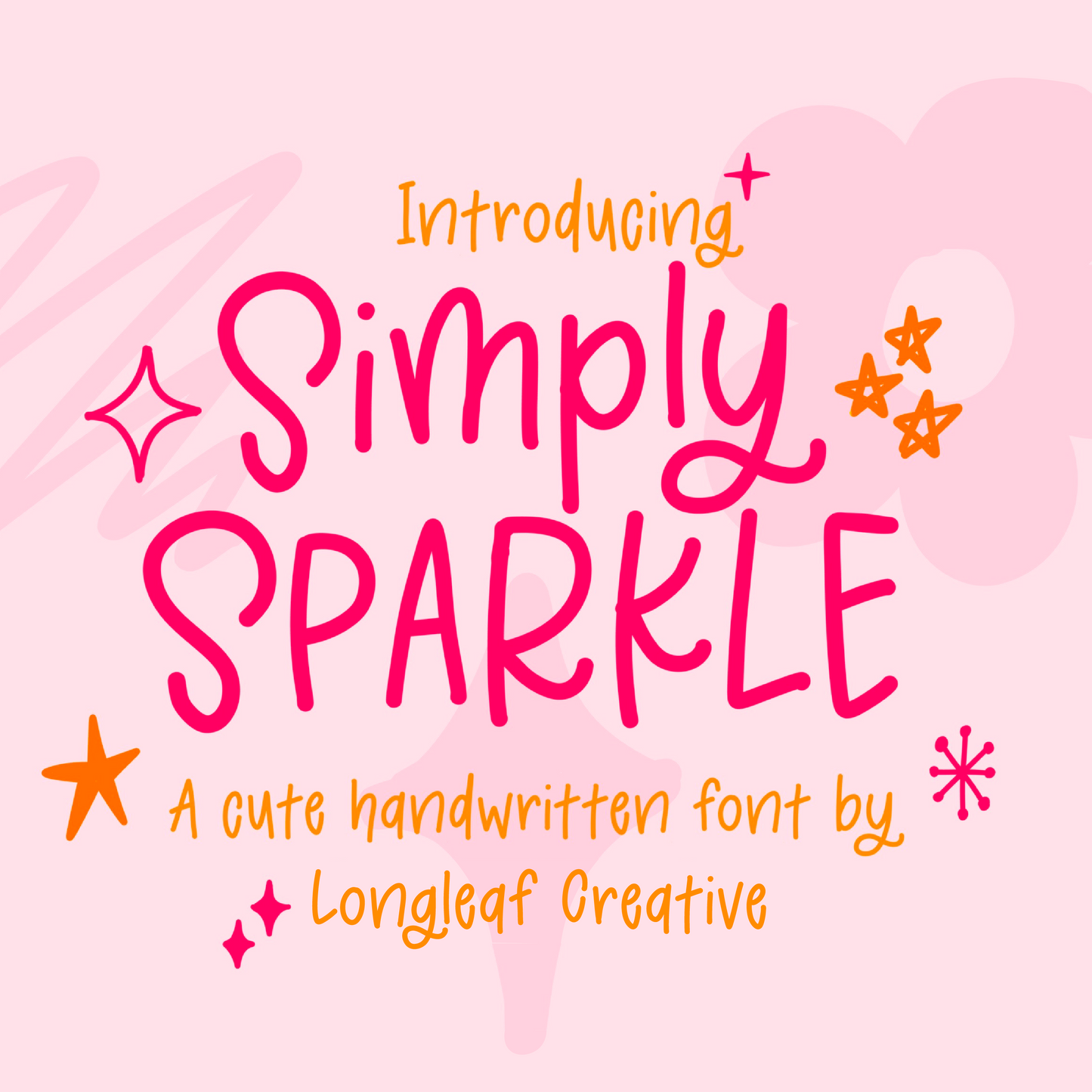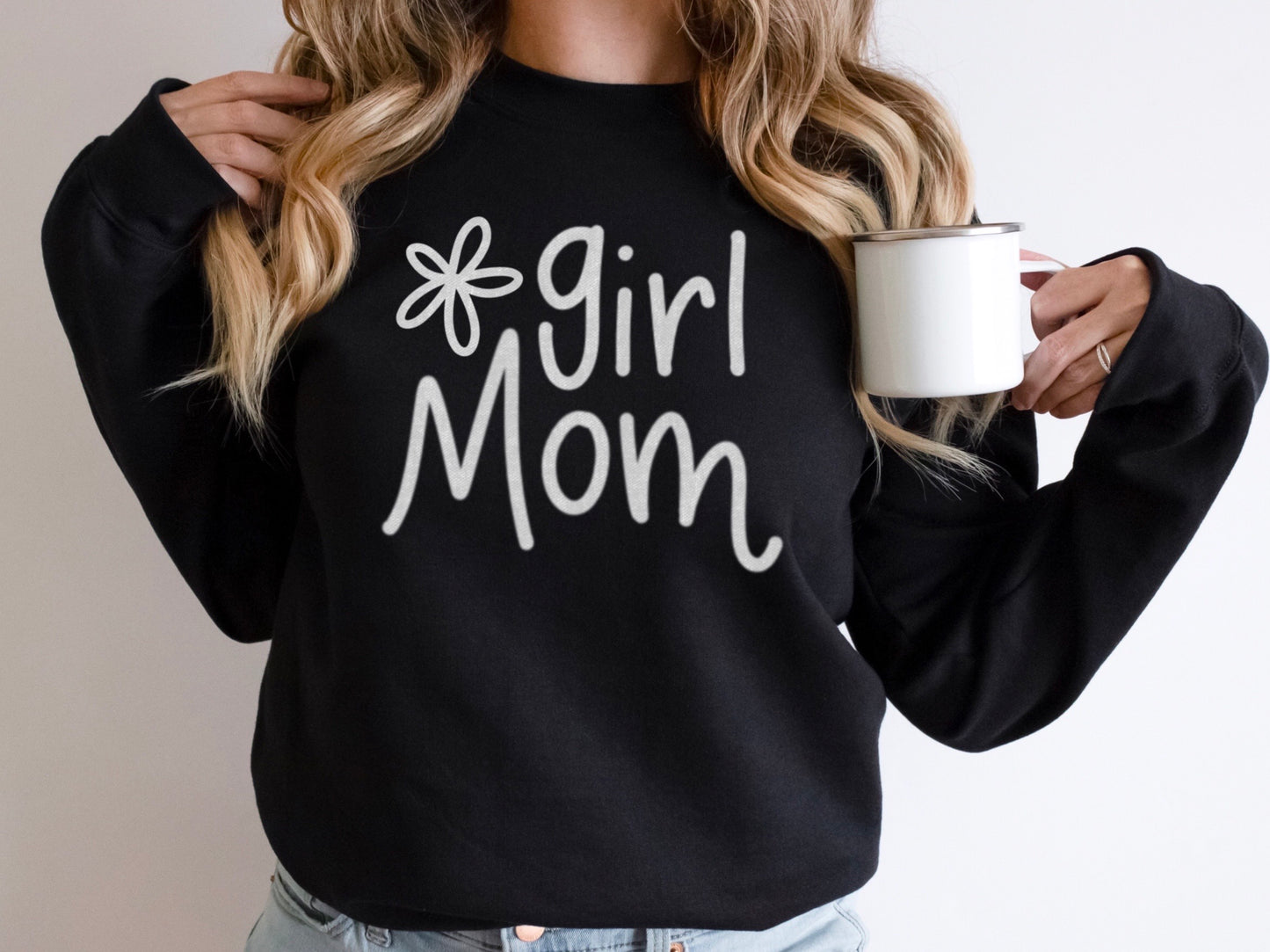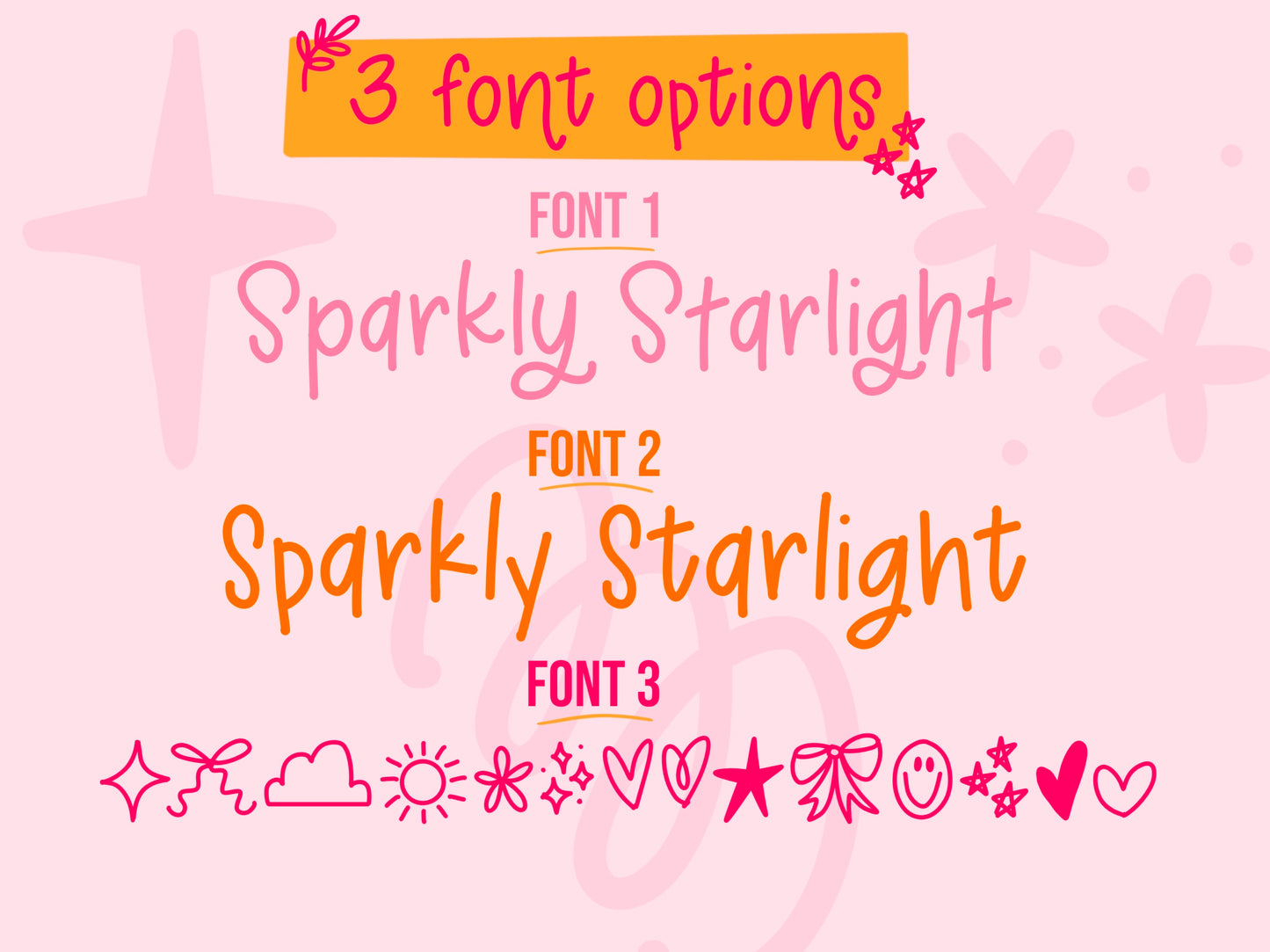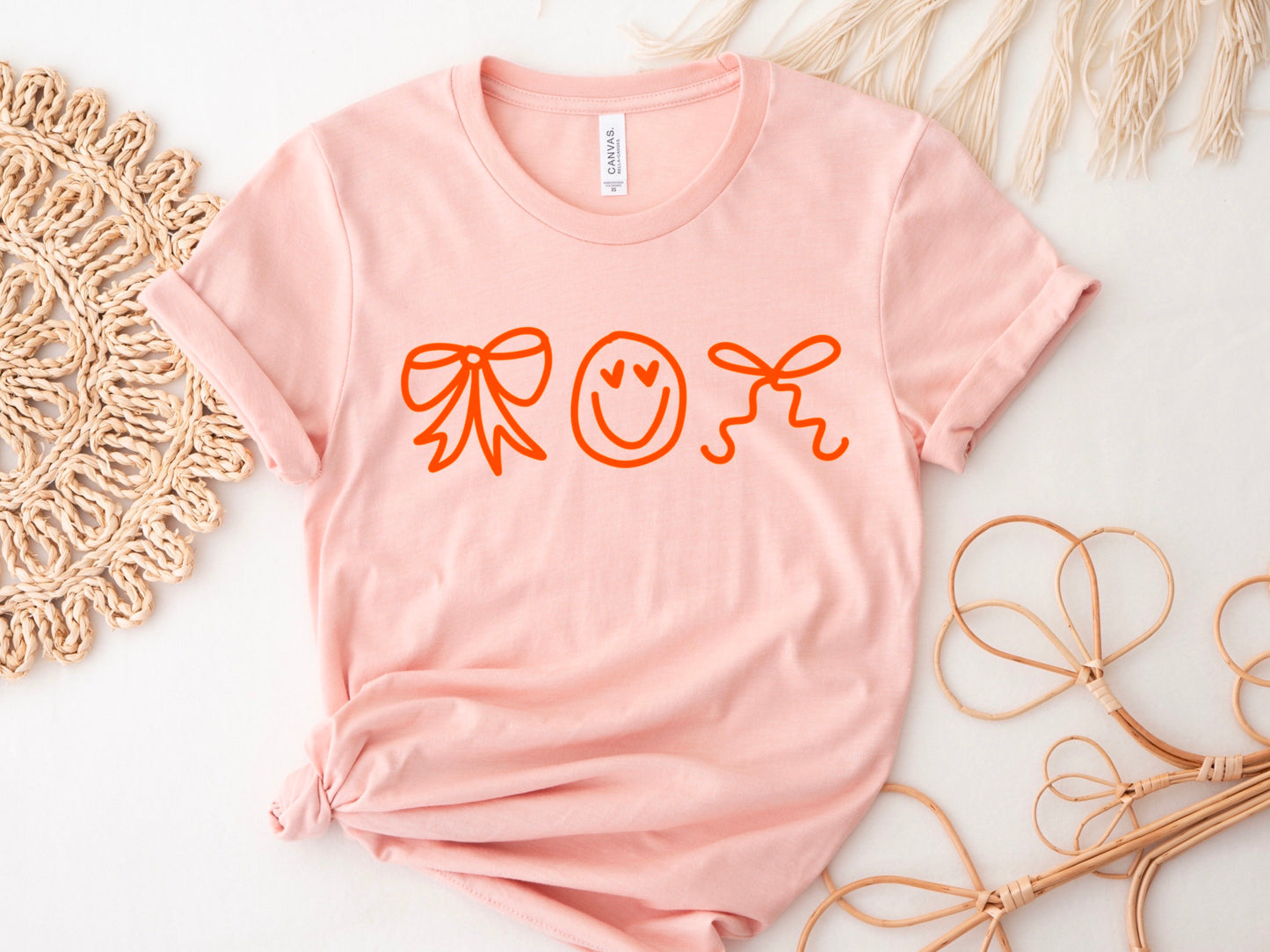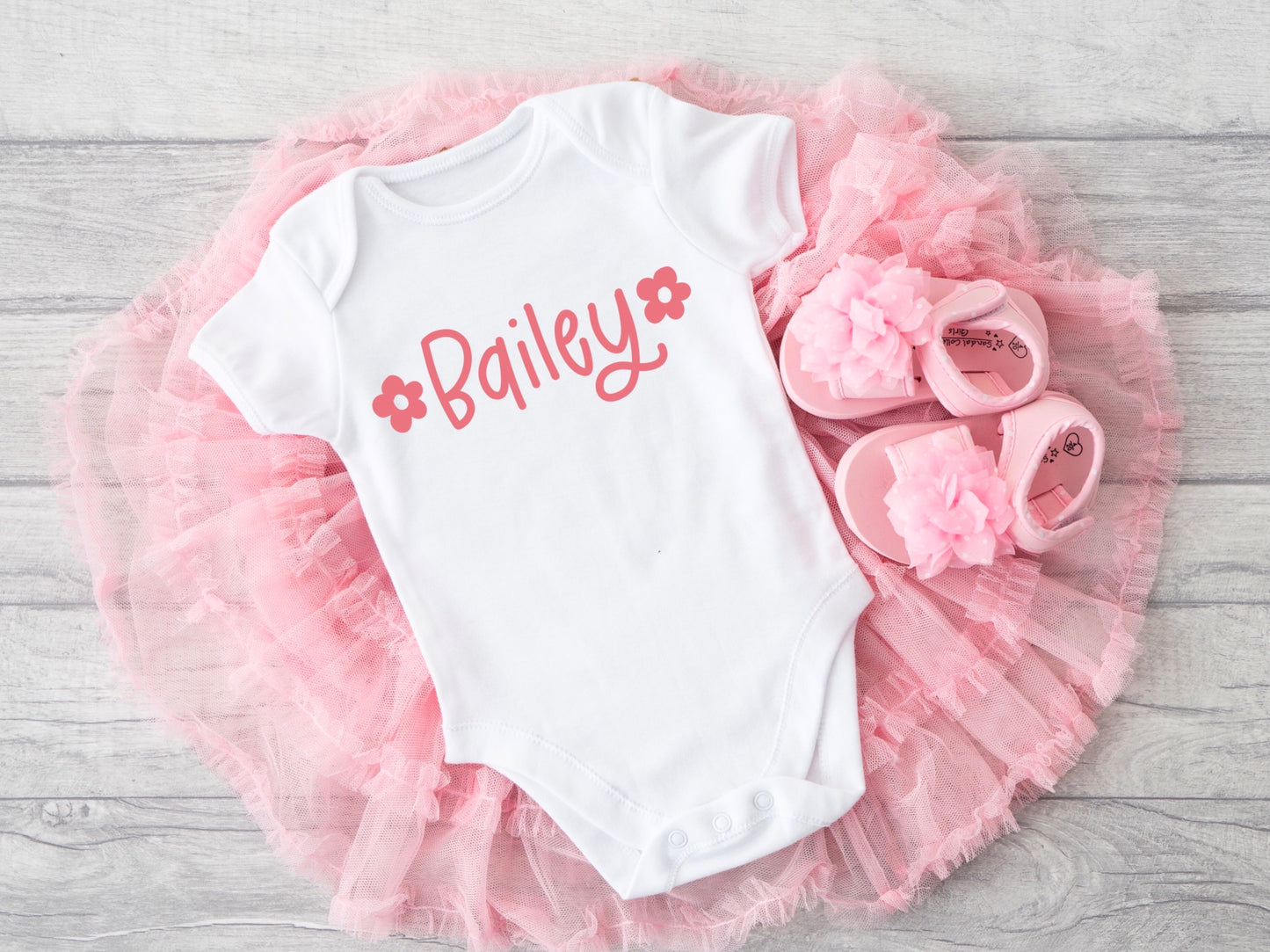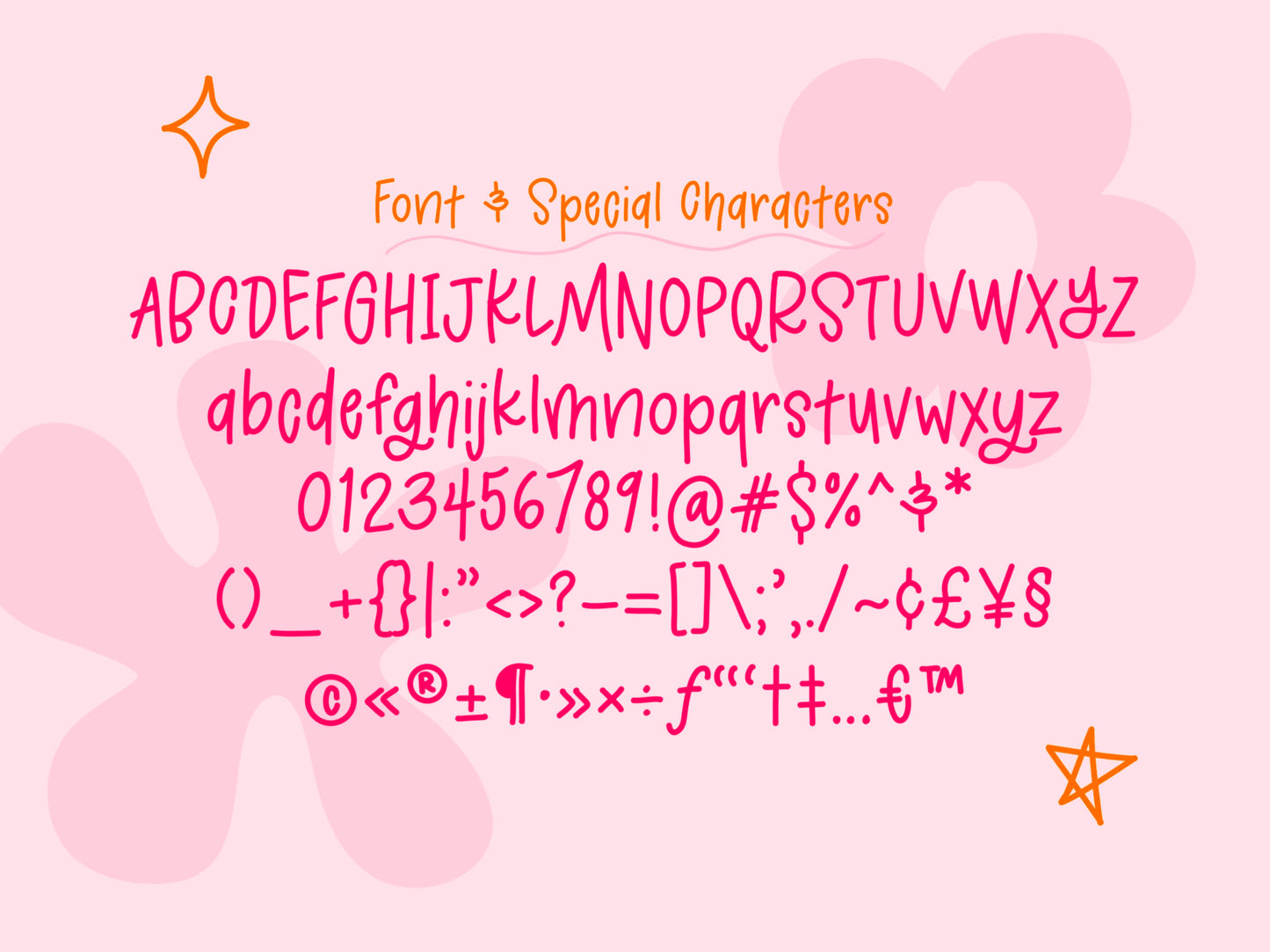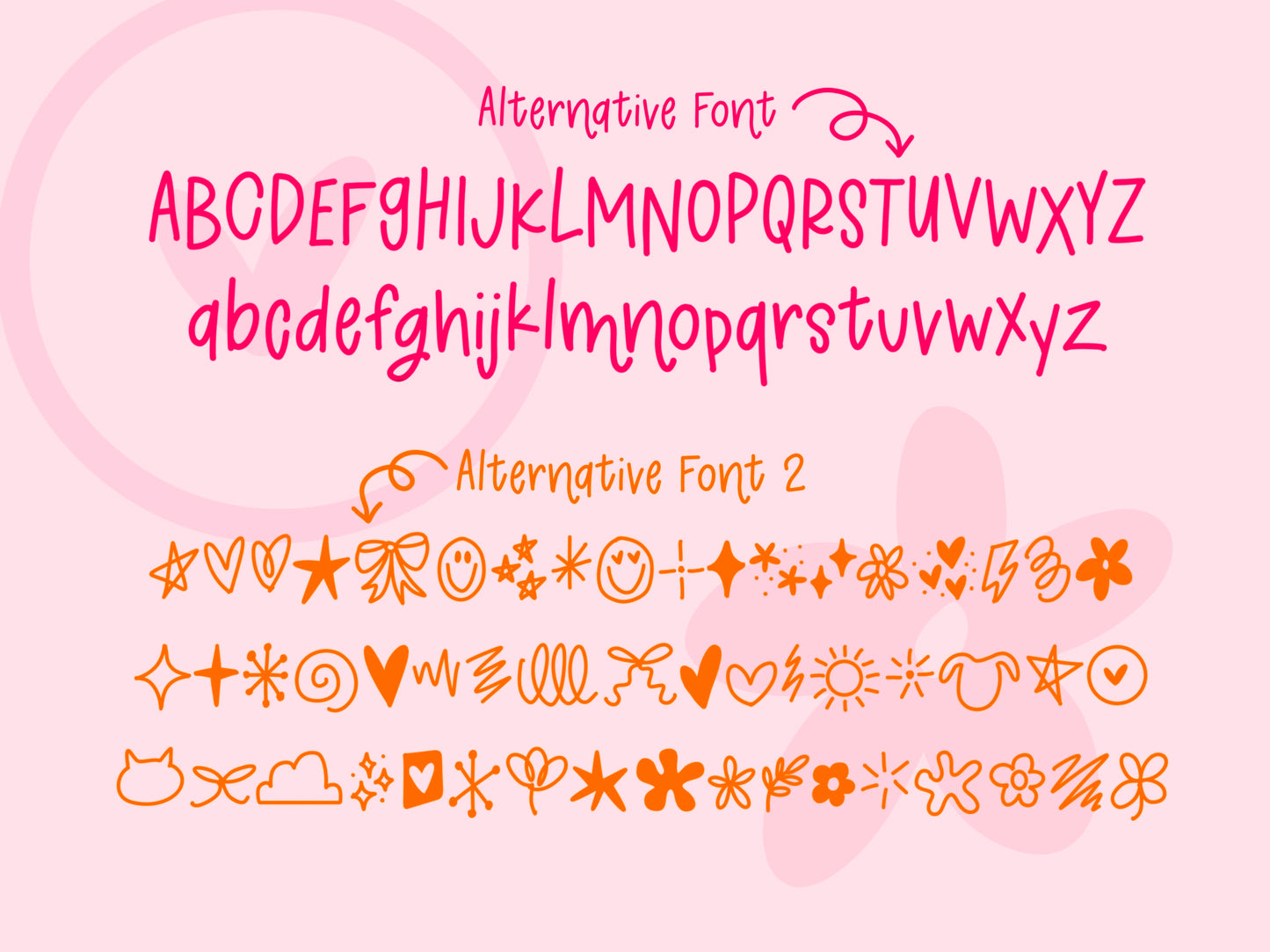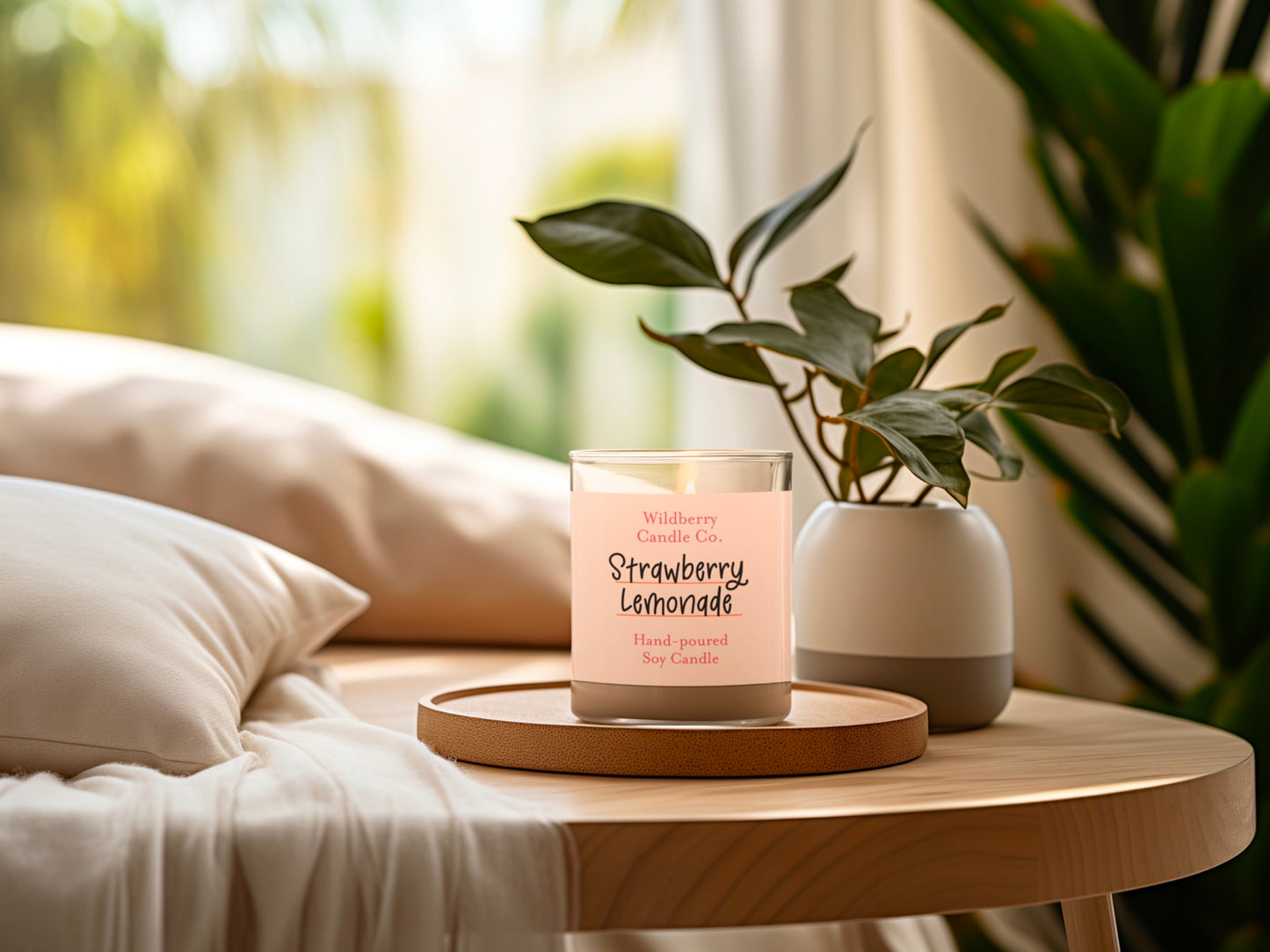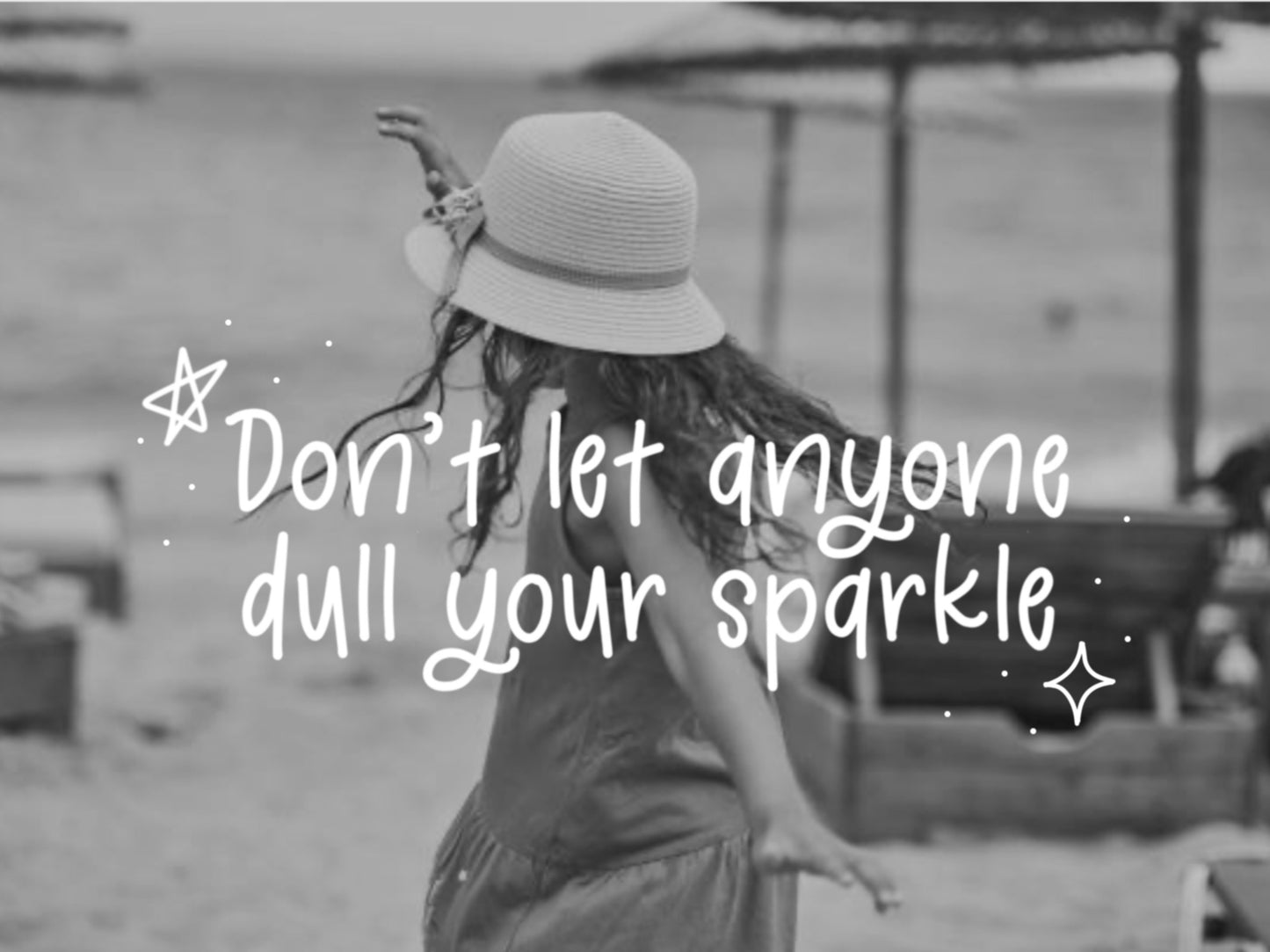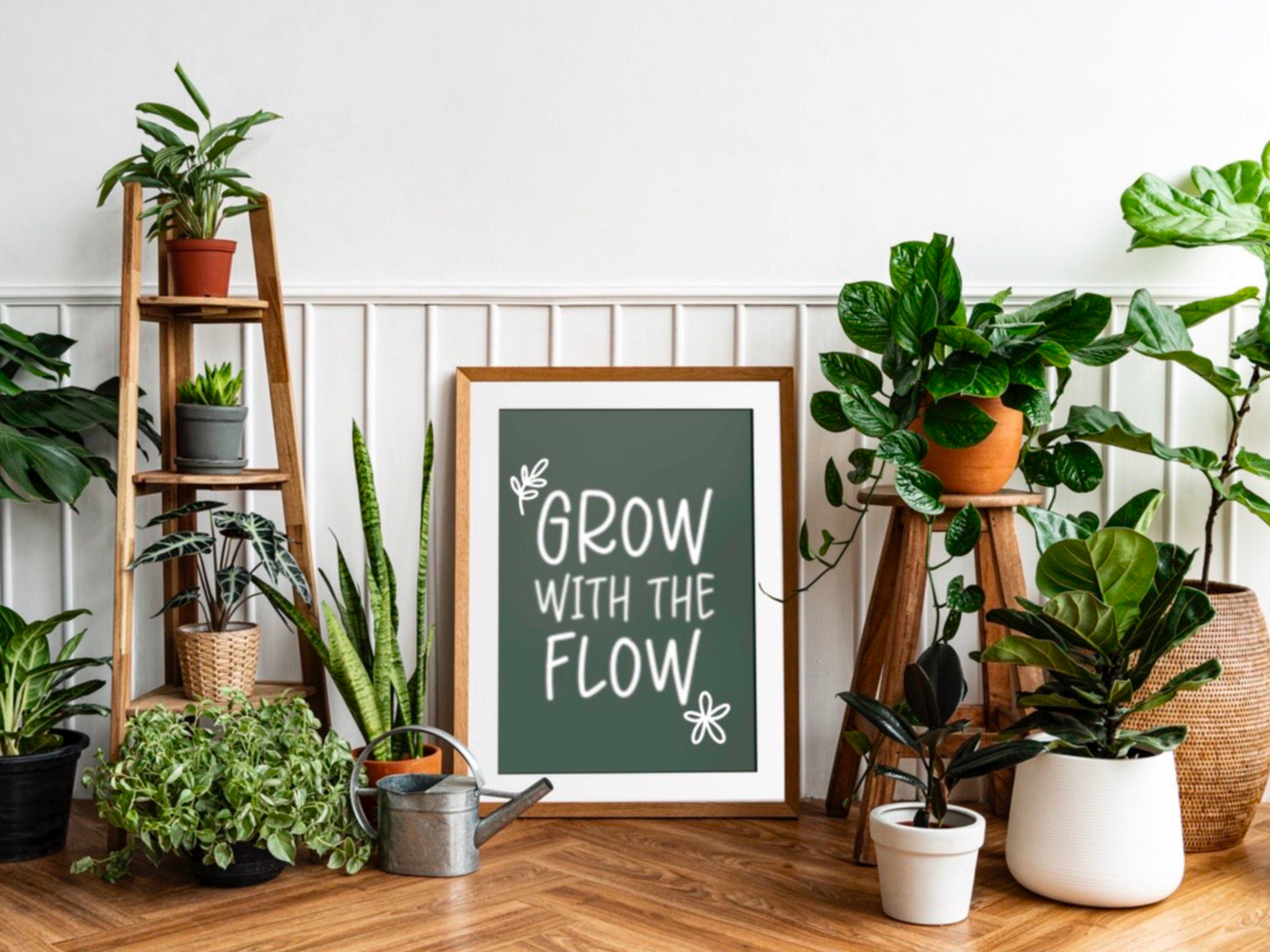
Simply Sparkle Handwritten Font
This is a cute handwritten font perfect for logos, marketing materials, vinyl projects, SVG files, t-shirts, stationery, and other product designs!